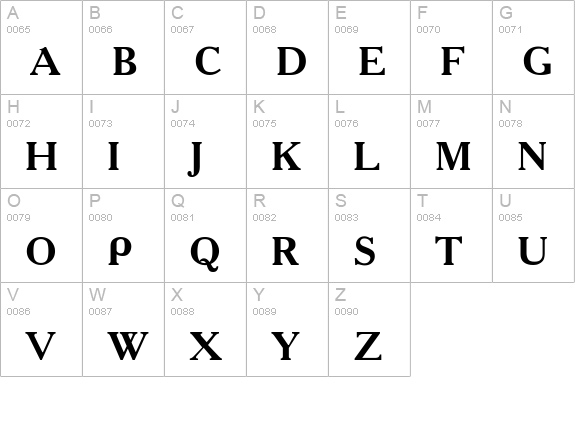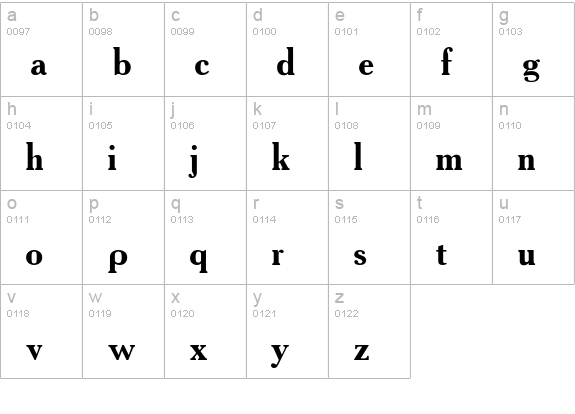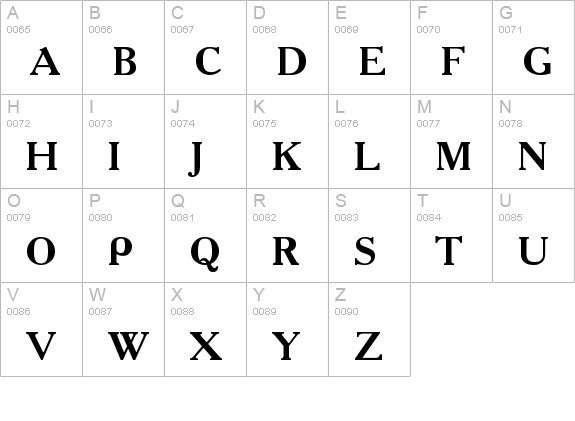
Academy Bold Font Details
Academy Bold is a strong, high-contrast variant in the Academy typeface family \xE2\x80\x94 well suited to headlines, attention-grabbing titles, and strong calls-to-action.
Academy Bold font is a versatile and modern typeface that adds a touch of elegance and sophistication to any design project. With its bold and eye-catching appearance, Academy Bold is perfect for headlines, titles, posters, and branding materials. The clean lines and sharp edges of this font make it easy to read and perfect for both print and digital applications. The best part? Academy Bold is available for free download at FontsMarket.com. This means you can easily access this high-quality font without any cost, making it a valuable addition to your font library. Whether you're a designer, marketer, or creative professional, Academy Bold is sure to elevate your projects and help you stand out from the crowd. Download Academy Bold today and start creating stunning designs with ease.